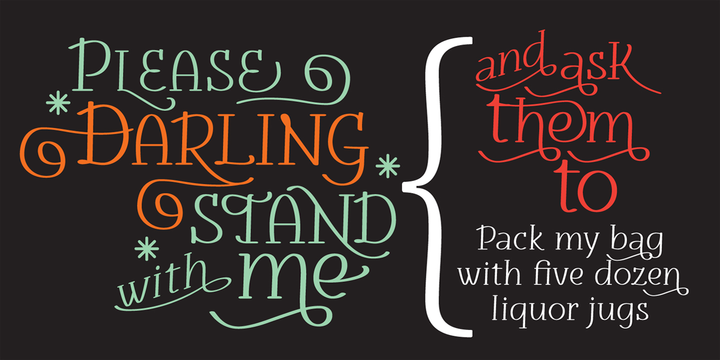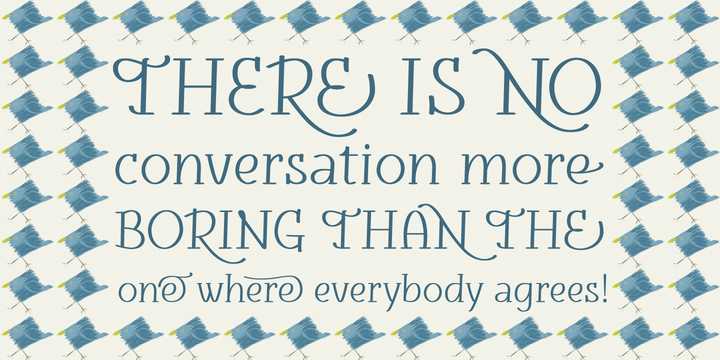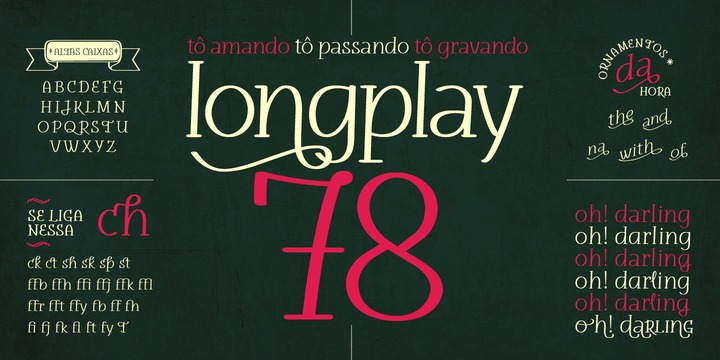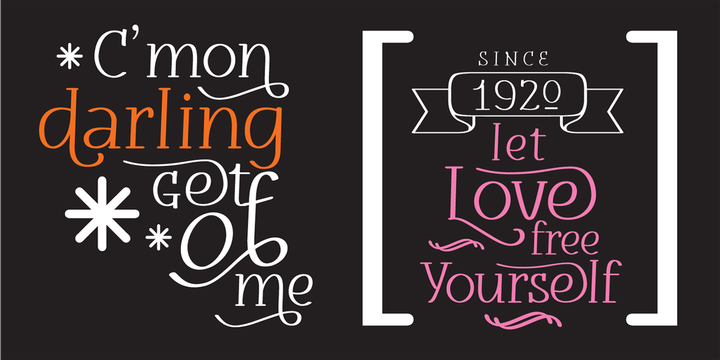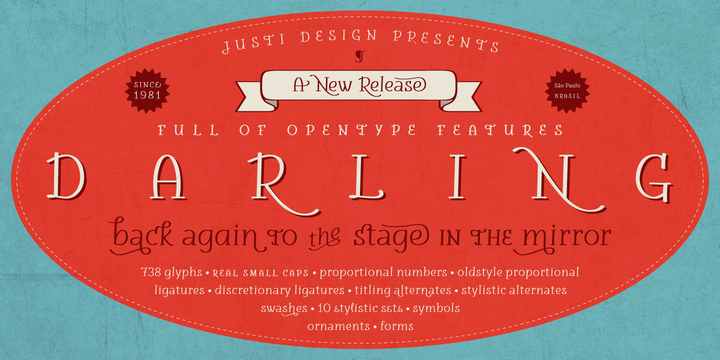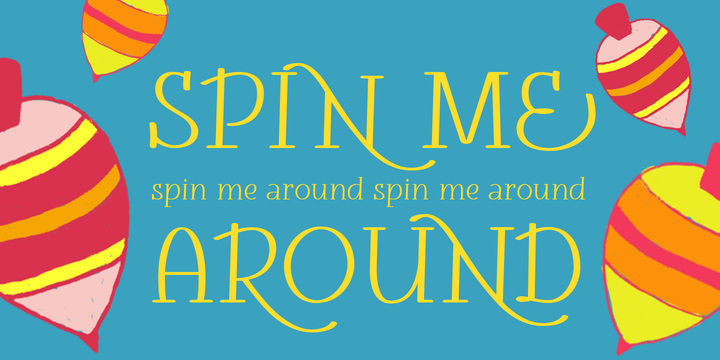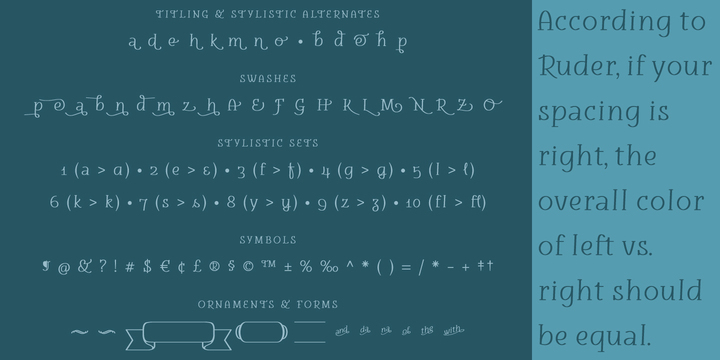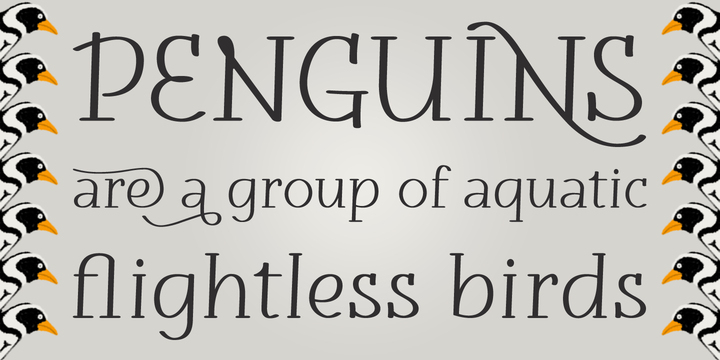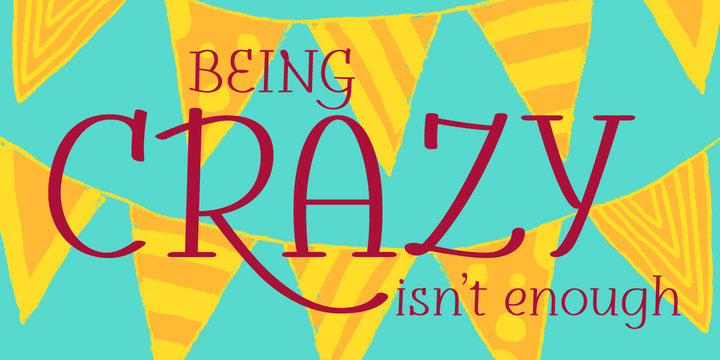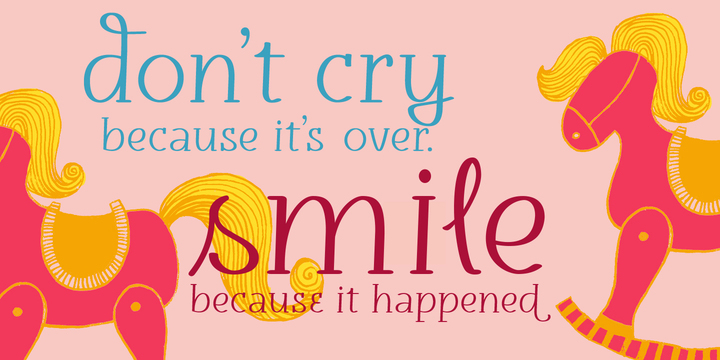
darling is a kids font published by Justi Design.
darling is a display font, with medium contrast, designed to be used in the composition of titles, letterings, visual id’s and short texts such as illustrated books or magazines for children.
it has 738 characters and a lot of opentype features that allows the composition of titles and/or words in a very different ways. otherwise, when applied with no features, it produces a homogeneous amount of text.